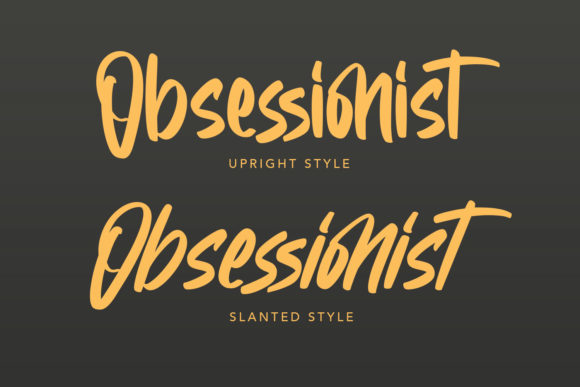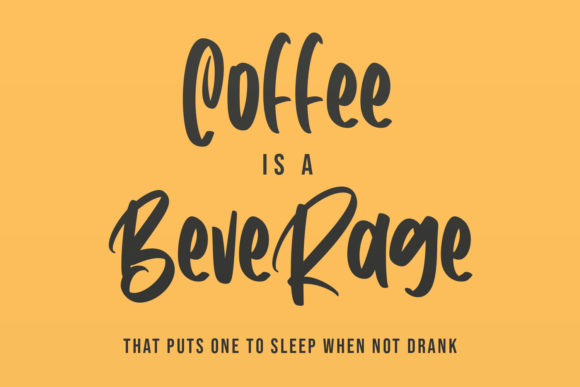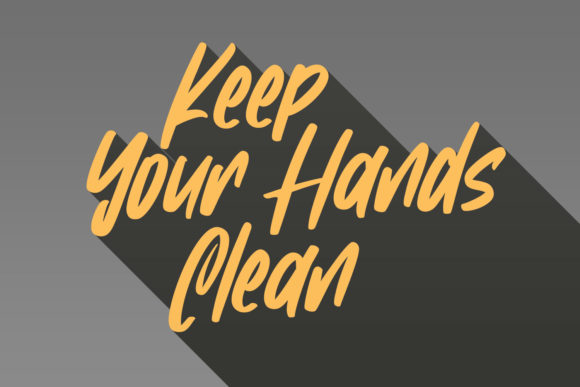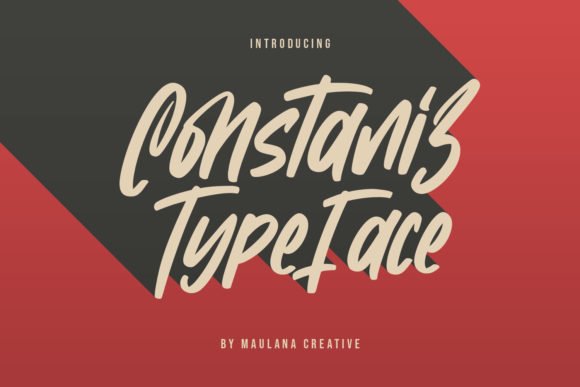
Introduction to Constaniz Font
Constaniz is a relaxed, timeless and unique handwritten font, created with the help of a brush pen.
Get inspired by its incredibly versatile style and use it to create beautiful and distinct designs .